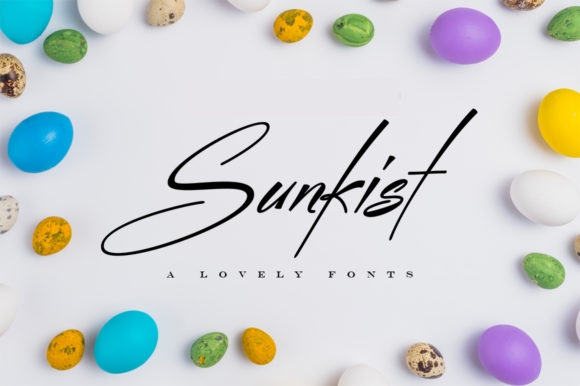
Sankist Font
Sankist Font is perfect for branding projects, logo design, headlines, poster design, magazine layouts, packaging design, social media graphics, web design, advertising materials, book covers, and editorial design projects.
Sankist Font is exciting because it combines modern elegance with exceptional readability, making it a versatile choice for both digital and print applications. Its carefully crafted letterforms feature unique character details that set it apart from conventional fonts, while maintaining professional appeal across various design contexts.
The Sankist Font family includes multiple weights and styles: Regular, Bold, Light, Medium, Semi-Bold, and Italic variations, providing designers with comprehensive typographic flexibility for any creative project.
Transform your design projects with the sophisticated appeal of Sankist Font Free Download. This remarkable typeface offers designers an exceptional combination of contemporary style and timeless elegance that enhances any visual communication. Whether you're working on corporate branding, editorial layouts, or digital marketing materials, Sankist Font delivers outstanding performance across all mediums.
The font's meticulously designed characters ensure excellent legibility at both large display sizes and smaller text applications. Its balanced proportions and refined details make it an ideal choice for luxury brands, fashion publications, architectural firms, and creative agencies seeking a distinctive typographic voice.
Sankist Font stands out in today's competitive design landscape through its unique blend of geometric precision and organic warmth. The typeface features carefully optimized spacing and kerning that ensures smooth reading flow, while its character set includes extensive language support for international projects.
Professional designers appreciate Sankist Font's versatility in creating cohesive brand identities. From business cards to billboard advertisements, this font maintains its visual impact and readability. The complete font family works harmoniously together, allowing for sophisticated typographic hierarchies that guide readers naturally through your content.